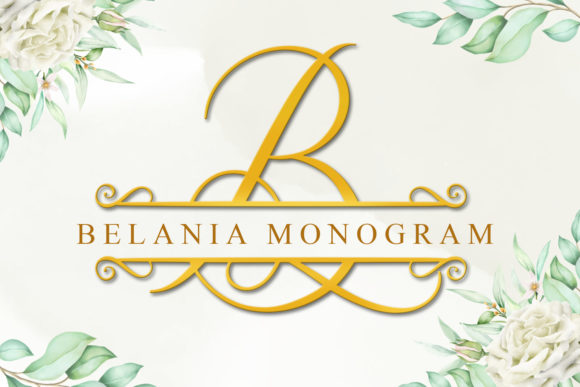
Introducing Belania Monogram - the font that will make your special day even more memorable. Designed by the talented team at niyos.studio, this charming decorative font exudes authenticity and elegance like no other.
Are you looking for the perfect font to use in your wedding videos? Look no further! Belania Monogram is the answer. Its unique and captivating design will make your videos stand out and give them a timeless feel that you and your loved ones will cherish forever.
Not only is Belania Monogram perfect for wedding videos, but it also makes a great addition to any creative project. Use it to create beautiful invitations that will impress your guests from the moment they receive them. Or design stunning stationary art that will be the envy of all your friends.
But that's not all. Belania Monogram is also ideal for creating eye-catching social media posts that will grab the attention of your followers and keep them coming back for more. And with its cute and playful design, it's perfect for creating greeting cards that are sure to put a smile on anyone's face.